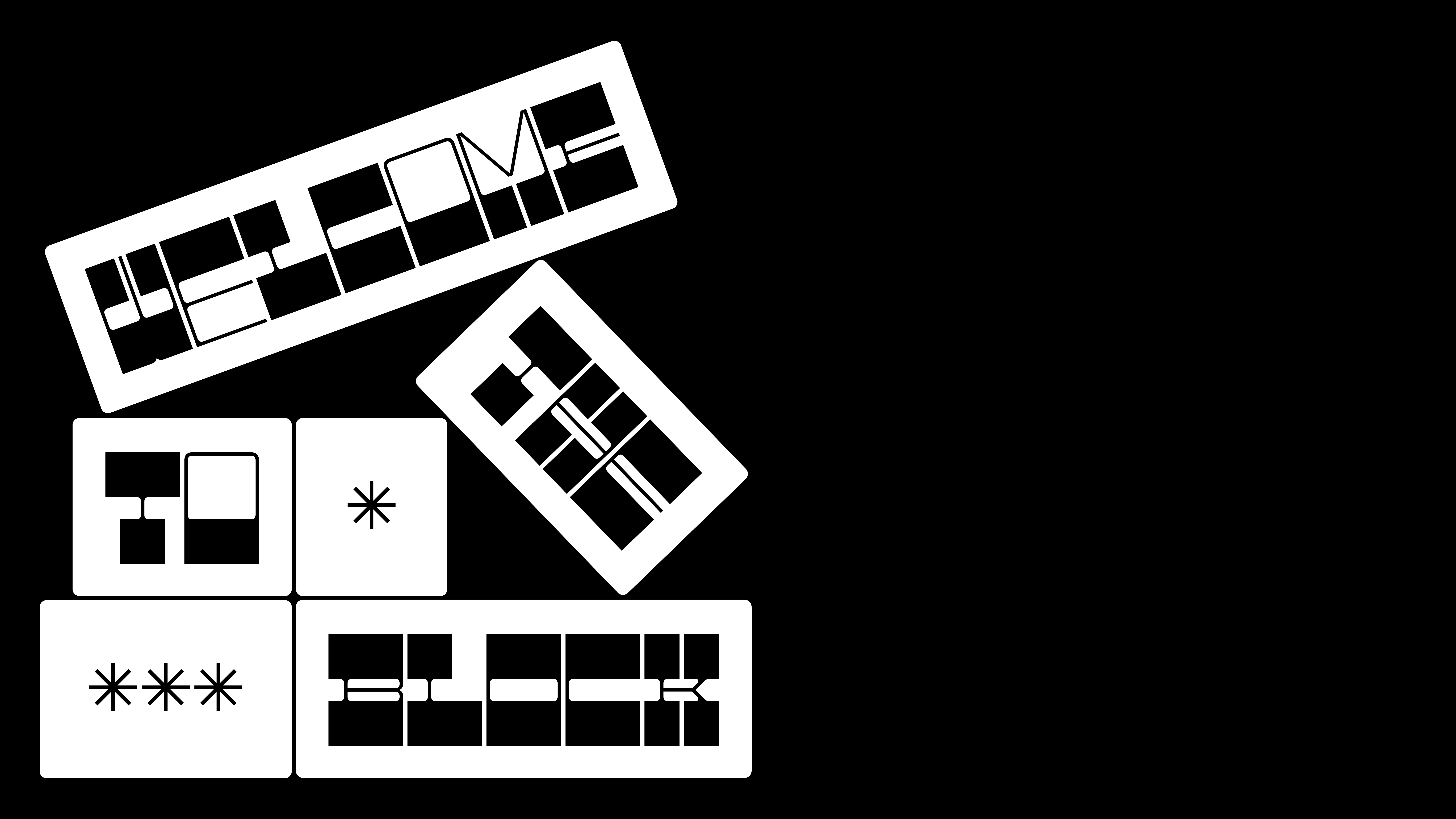
F37 Op Block
Cowboys in space? The reversed contrast French Clarendon style common in 19th century wood type has been reimagined by Universal Everything.
Unmistakably experimental, F37 OpBlock is designed as a modular, uni-case and mono-spaced take on the genre. The font’s tight spacing and consistent contrast create a graphic, horizontal consistency throughout the text. This, along with the high stroke contrast make it a font perfect for large and punchy headlines. Packed with alternates, F37 OpBlock is constantly cycling through them while typed. The modularity of the font is in constant flux, creating interesting and always new word shapes.